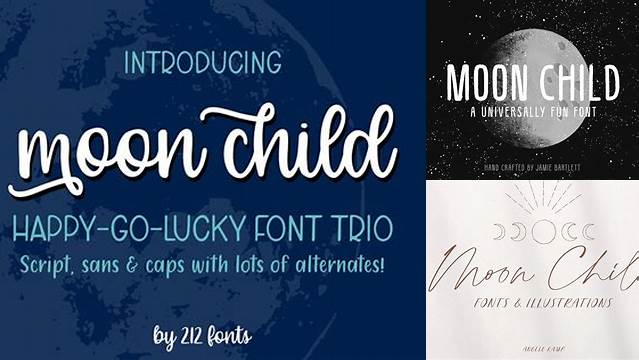
Hey guys! Are you on the hunt for a charming script font that can add a touch of magic to your designs? Well, look no further! Today, we're diving deep into the Moon Child script font, offering you a free download and loads of creative ideas on how to use it. This font is perfect for those looking to infuse their projects with a whimsical, handwritten feel. Whether you're a seasoned designer or just starting out, the Moon Child font is a fantastic addition to your font library. Let's get started and explore the enchanting world of this beautiful typeface!
What Makes the Moon Child Script Font Special?
The Moon Child script font isn't just another font; it's a statement. It's got that perfect balance of elegance and playfulness that makes it stand out from the crowd. Its flowing curves and delicate strokes give off a sense of artistry and grace, making it ideal for a variety of projects. Think about it: the way a font looks can completely change how people feel about what you're making. This font is so flexible that it can be useful on a wide variety of projects, from logos to social media posts.
First off, the Moon Child script font is known for its legibility. Despite its flowing nature, the letters are designed in a way that they are easy to read, even at smaller sizes. This is super important because you want people to actually be able to read what you've written! This is what separates a professional font from a novice, is the ability to be read. The designer behind this font clearly considered how well each letter would flow, this makes the font stand out in any design.
Secondly, the Moon Child font brings a unique aesthetic to any project. It has a handwritten feel that humanizes the design, adding a warm and personal touch. In a digital world, where things can sometimes feel cold and impersonal, this font can help you bridge the gap by establishing a connection with your audience. It's like a digital hug! This makes it perfect for projects where you want to build relationships with users, such as in blog posts or creating brand awareness. It is also good to know that using this font helps to set yourself apart from designs using basic or free fonts.
Finally, its versatility allows you to use it in numerous ways. Whether you're working on a logo, a wedding invitation, or a social media graphic, the Moon Child font fits right in. Its adaptability is a key feature that makes it a favorite among designers. Its versatility and professional look lets you get the most out of this script font!
Exploring the Design and Features
When you download the Moon Child script font, you're getting more than just a collection of letters and symbols. You're gaining access to a complete design package that's made to elevate your creative projects. Let's explore some of the key features and design elements that make this font so special. First, it has a flowing, handwritten style with elegant, interconnected letterforms. This design choice creates a sense of continuity and fluidity, enhancing the font's aesthetic appeal and making it visually interesting. Each letter is crafted with care, ensuring that the font retains its beauty even at larger sizes.
Second, this font's high readability is a standout feature. The design makes sure all letters are easily recognizable, even when they're connected. This clarity is essential for any script font, making sure it is used on a variety of projects without any usability concerns. The font includes a complete character set, including uppercase and lowercase letters, numerals, and various punctuation marks. Having a complete set gives you the flexibility to create everything from headlines to detailed body text, making it great for any project you have in mind.
Last but not least, many versions of the Moon Child font come with OpenType features like ligatures and stylistic alternates. Ligatures are specific letter combinations that are specially designed to connect in a more visually appealing way. Stylistic alternates provide different versions of certain characters, allowing you to customize your designs further. These features add even more depth and personality to your work, letting you truly make it your own. In short, the design and features of the Moon Child script font come together to provide a balanced and professional look. It's a versatile and stylish choice that looks professional in any design.
Conclusion: Embrace the Moon Child Script Font!